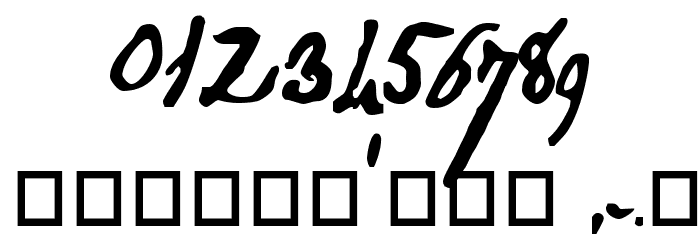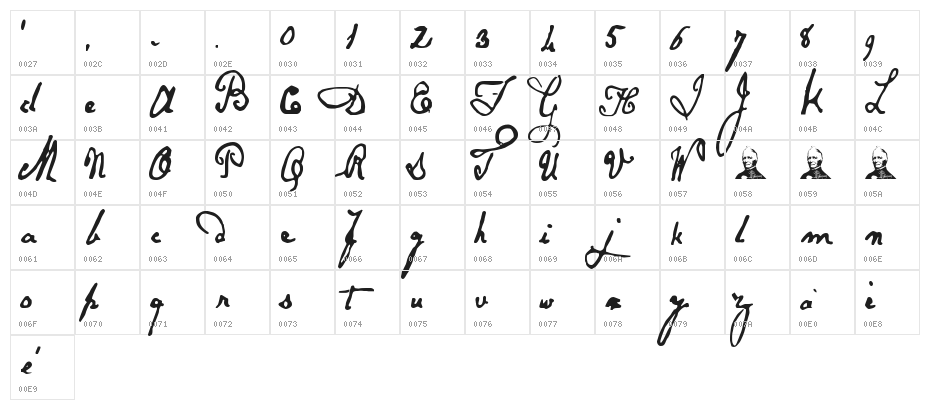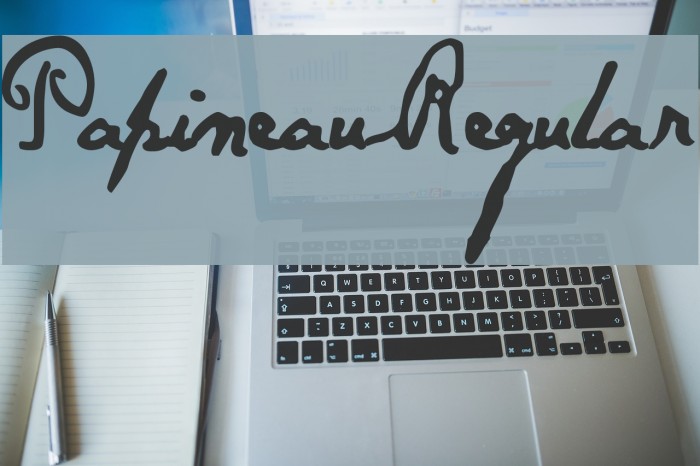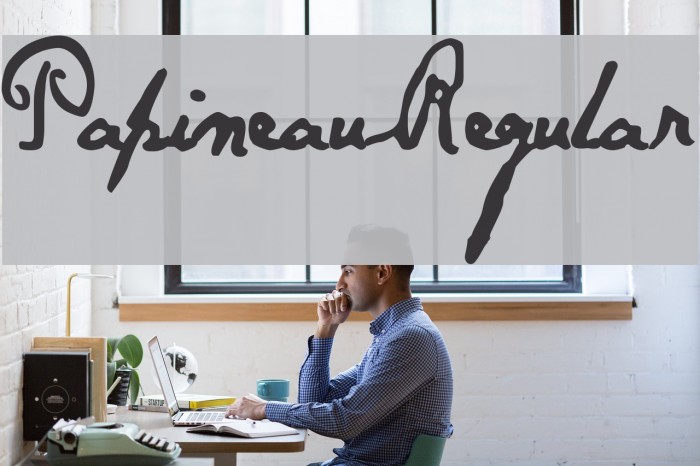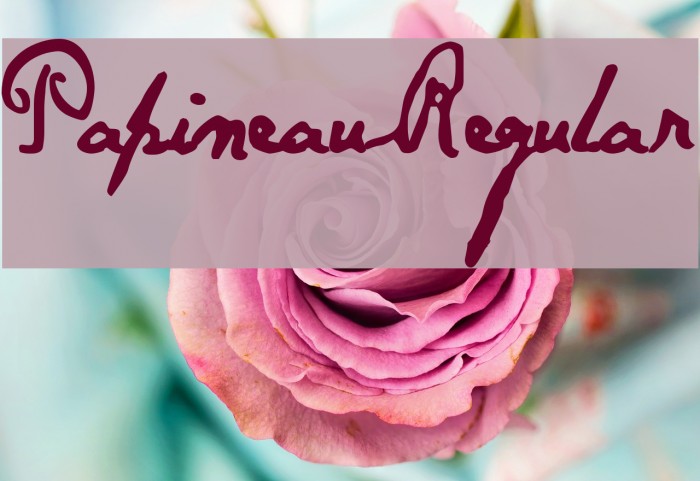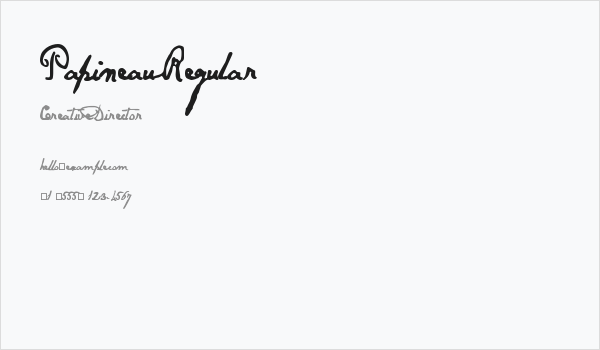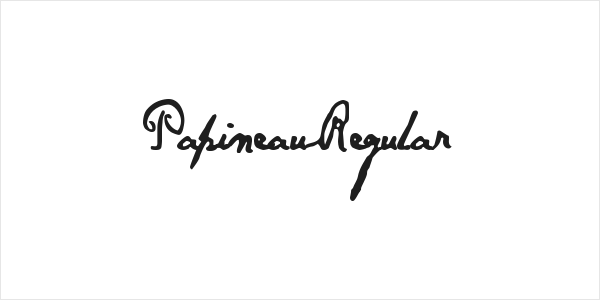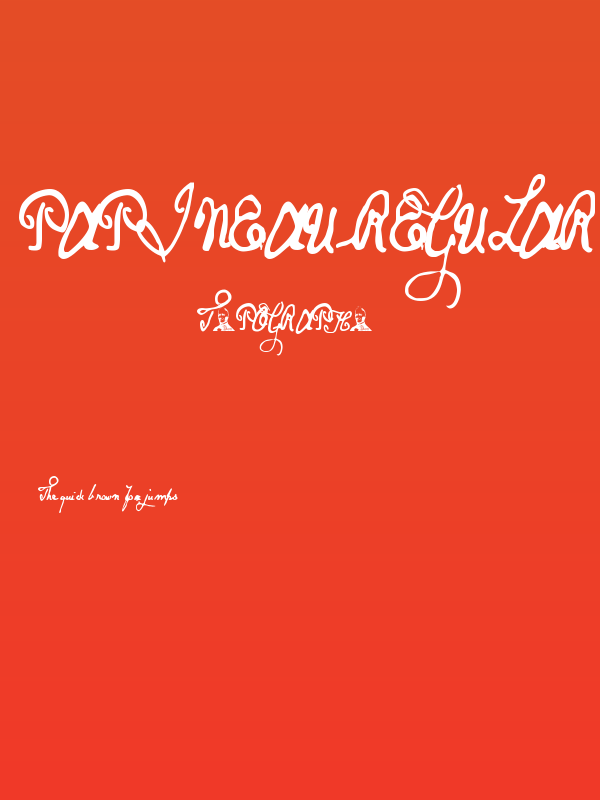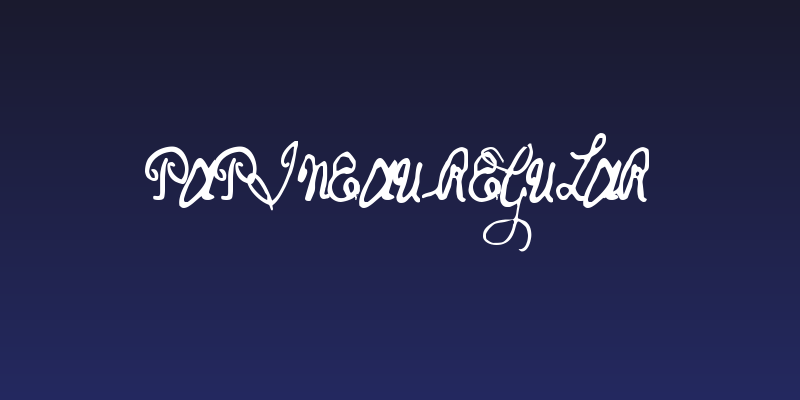
Papineau Regular Font
Papineau Regular Description
This font exudes a vintage and decorative style, characterized by its intricate and flowing script. The uppercase letters are ornate, with elaborate loops and flourishes that give them a sense of elegance and sophistication. The lowercase letters maintain a consistent cursive style, with smooth connections between each character, enhancing the handwritten feel. The numbers are equally stylized, with a dynamic flair that complements the overall aesthetic. The special characters are designed to match the ornate nature of the alphabet, making this font ideal for projects that require a touch of historical charm.
| Use Case | Logos, Invitations, Decorative Text |
| Proposed Projects | Ideal for wedding invitations, historical documents, vintage-themed branding, and decorative signage. |